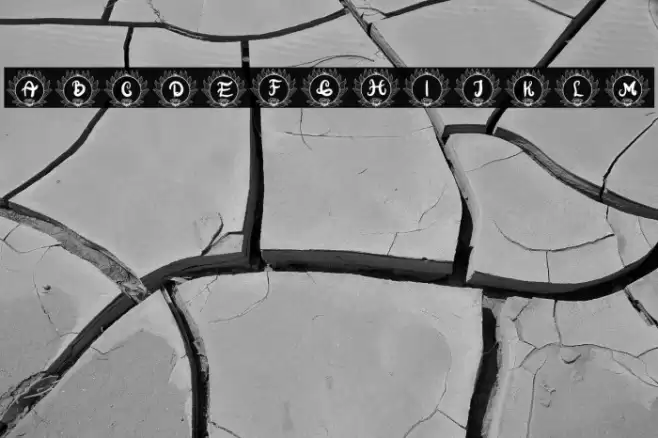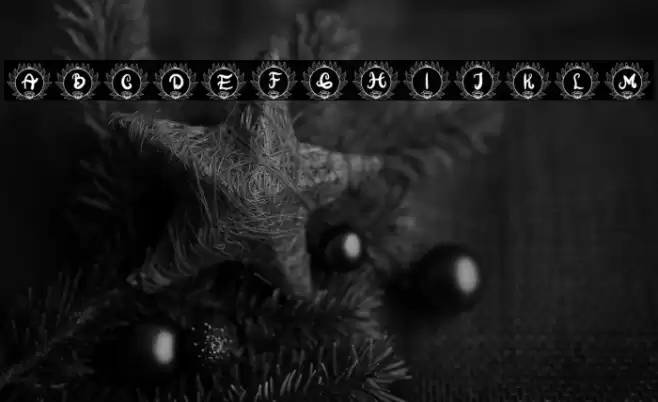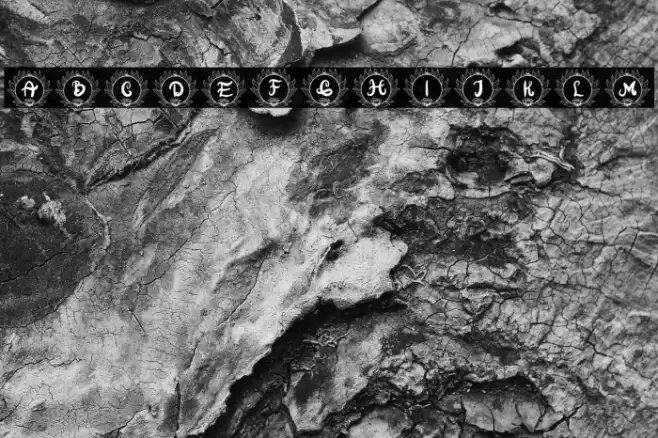
Florilla Fista II Font
This font features an elegant and decorative style, with each character encased in a circular floral wreath. The letters are a blend of script and serif styles, offering a unique and artistic appearance. The uppercase and lowercase letters maintain a consistent design, with the script elements adding a touch of sophistication. The numbers and special characters follow the same decorative theme, ensuring uniformity across all elements. This font is ideal for projects that require a touch of elegance and creativity, such as invitations, greeting cards, or branding materials.
Use CaseHeadlines, Logos, Invitations
Proposed ProjectsIdeal for wedding invitations, greeting cards, luxury branding, and decorative posters.